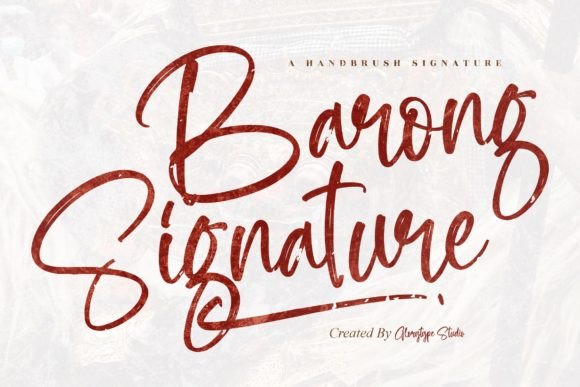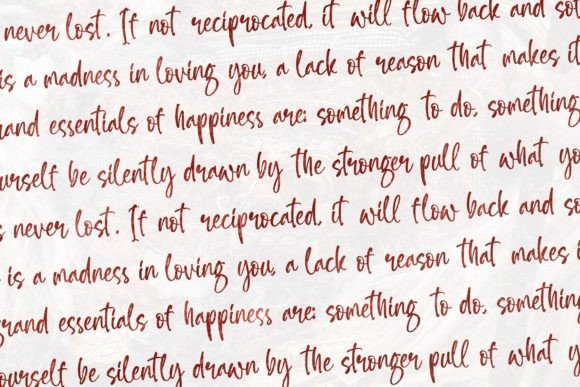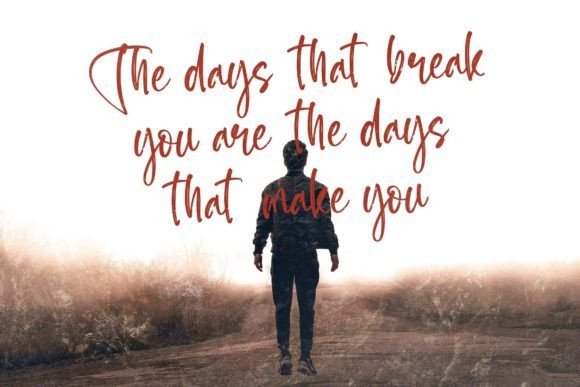
About Barong Signature Font
Barong Signature is not just a font; it’s a sweet and cursive handwritten signature script that effortlessly adds a touch of charm to a variety of design projects. With its gentle strokes and flowing lines, this font enhances a diverse range of creative ideas, infusing them with a joyful and romantic aesthetic.
Branding and logos benefit greatly from Barong Signature’s distinctive charm. Its cursive signature style adds a personal and elegant touch, creating a memorable and sophisticated visual identity for brands. Whether applied to wedding-related designs, greeting cards, or fashion projects, Barong Signature consistently brings a blend of fanciness and casual elegance.
In the world of wedding design, Barong Signature stands out as a perfect companion for invitations, place cards, and other stationery. Its romantic touch contributes to a warm and inviting atmosphere, setting the tone for special occasions. The font’s versatility shines through in fashion-related projects, where it seamlessly integrates into lookbooks, marketing promotions, and various branding materials.
Greeting cards, with their emphasis on personal expression, find a suitable partner in Barong Signature. The font transforms ordinary messages into heartfelt expressions, adding a layer of sophistication to the overall design. In marketing promotions, this font becomes an invaluable asset, creating a visual language that is both fancy and approachable.
In essence, Barong Signature is more than a font; it’s a design companion that elevates and refines. Its ability to infuse joy, romance, and sophistication into a wide range of projects makes it a versatile choice for designers seeking a perfect blend of elegance and casual appeal. Whether used for branding, weddings, fashion, or heartfelt messages, Barong Signature consistently adds a touch of magic to each creative endeavor.